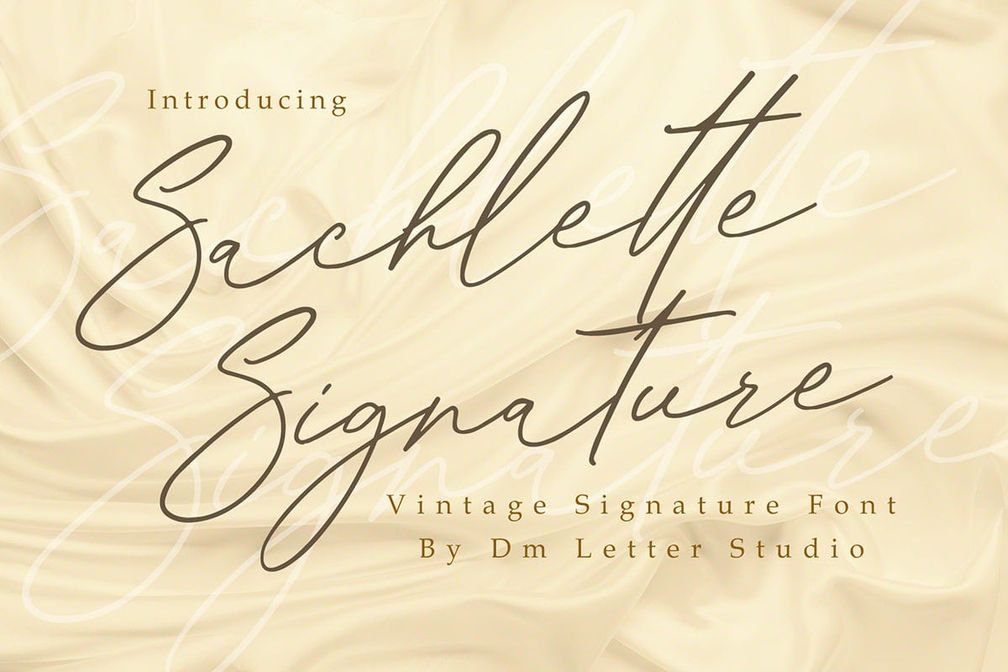
Sachlette Signature
The Sachlette Signature Font is an exquisite and sophisticated typeface that embodies the elegance and charm of a personal signature. With its flowing and graceful letterforms, this font adds a touch of luxury and refinement to your branding, invitations, logos, and other upscale projects.
1. Elegant and Refined Style: The Sachlette Signature Font exudes an elegant and luxurious aesthetic. Its flowing letterforms and delicate curves create an air of sophistication and charm, making it ideal for projects that require a touch of opulence.
2. Authentic Signature Design: The font’s design captures the authenticity and personal touch of a handwritten signature. It emulates the fluidity and grace of penmanship, adding a unique and personal feel to your typography.
3. Versatile Application: This font is versatile and well-suited for various design projects that demand a touch of elegance and class. Use it in branding, invitations, logos, stationery, and more to add a touch of refinement and luxury to your designs.
4. Uppercase and Lowercase Letters: The font includes both uppercase and lowercase letters, providing flexibility and creative freedom in your designs. Mix and match the cases to create visually appealing and harmonious typography.
5. Ligatures: The Sachlette Signature Font offers a selection of ligatures that enhance the visual interest of your text. These special characters create unique connections between letters and decorative flourishes, allowing you to create captivating and personalized typography.
6. Punctuation and Symbols: In addition to the alphabet, the Sachlette Signature Font includes a comprehensive set of punctuation marks, numerals, and common symbols. This ensures consistency and ease of use when incorporating the font into your design projects.
Elevate your designs with the elegance and refinement of the Sachlette Signature Font. Let its flowing letterforms and graceful curves add a touch of luxury to your branding, invitations, and logos. Embrace the personal and sophisticated nature of this font and create designs that exude opulence and charm.